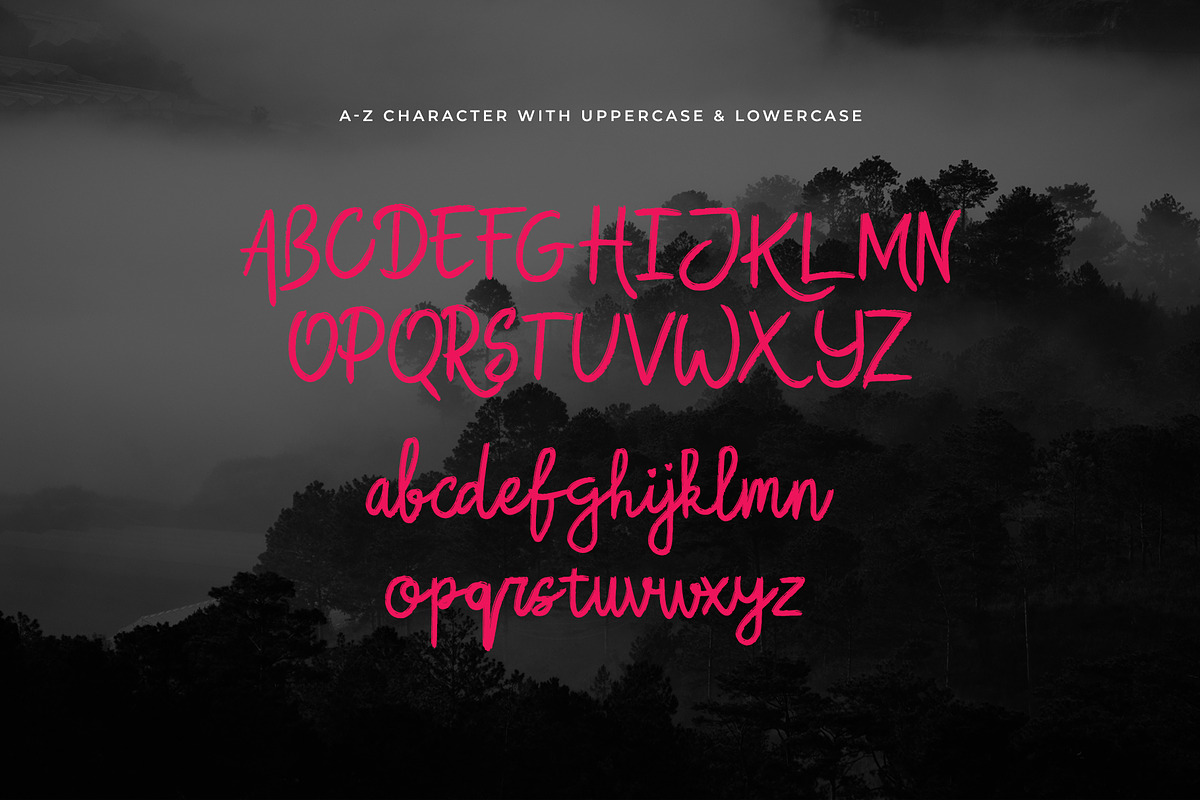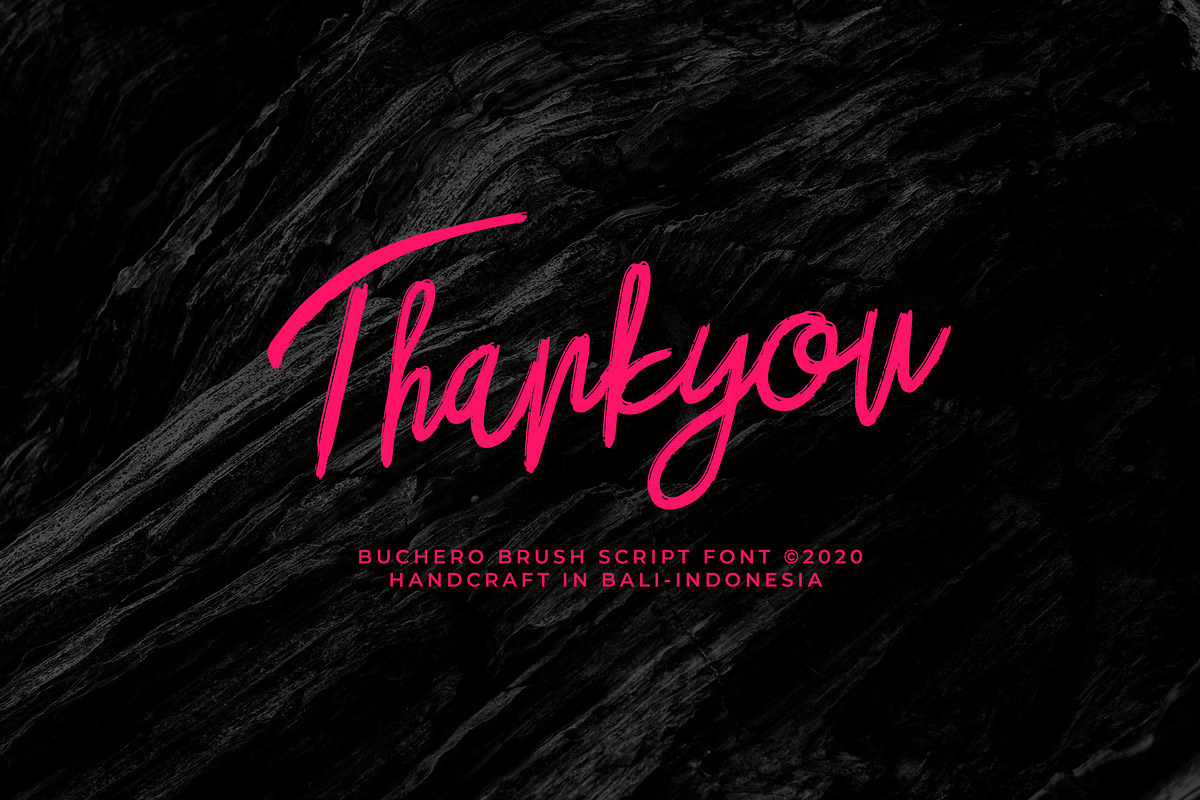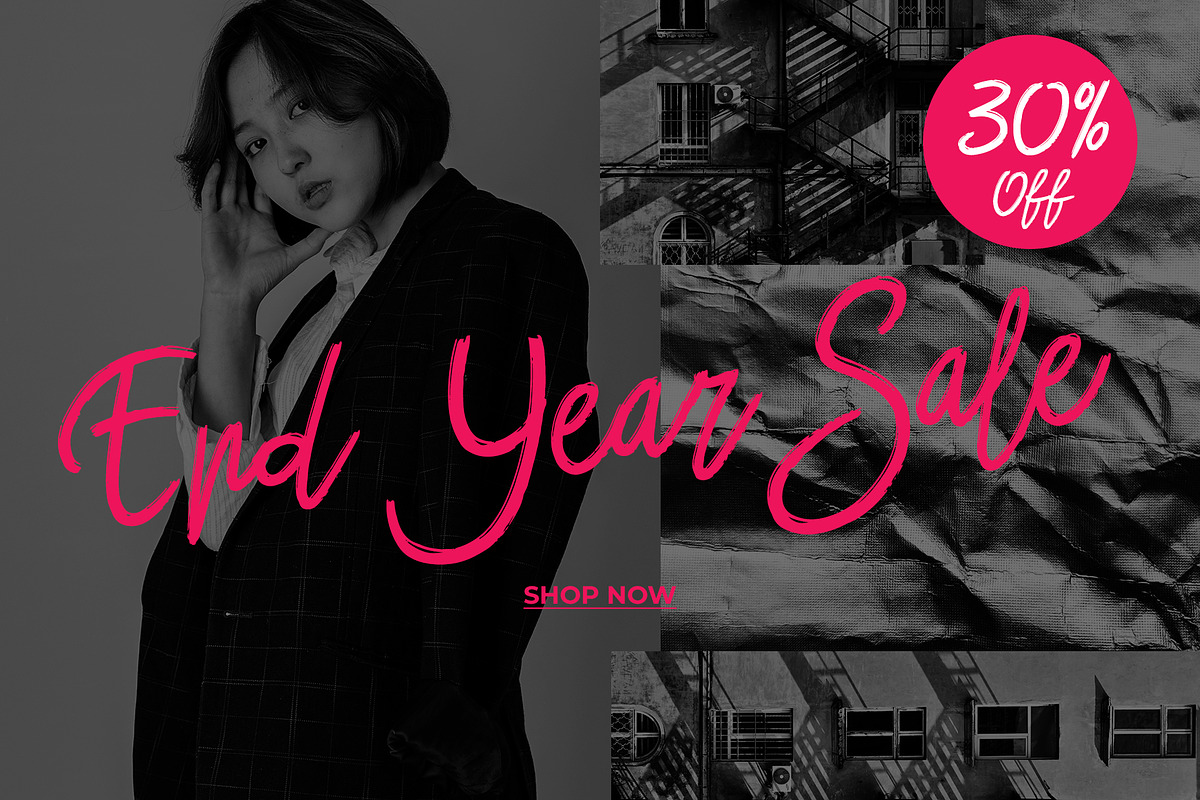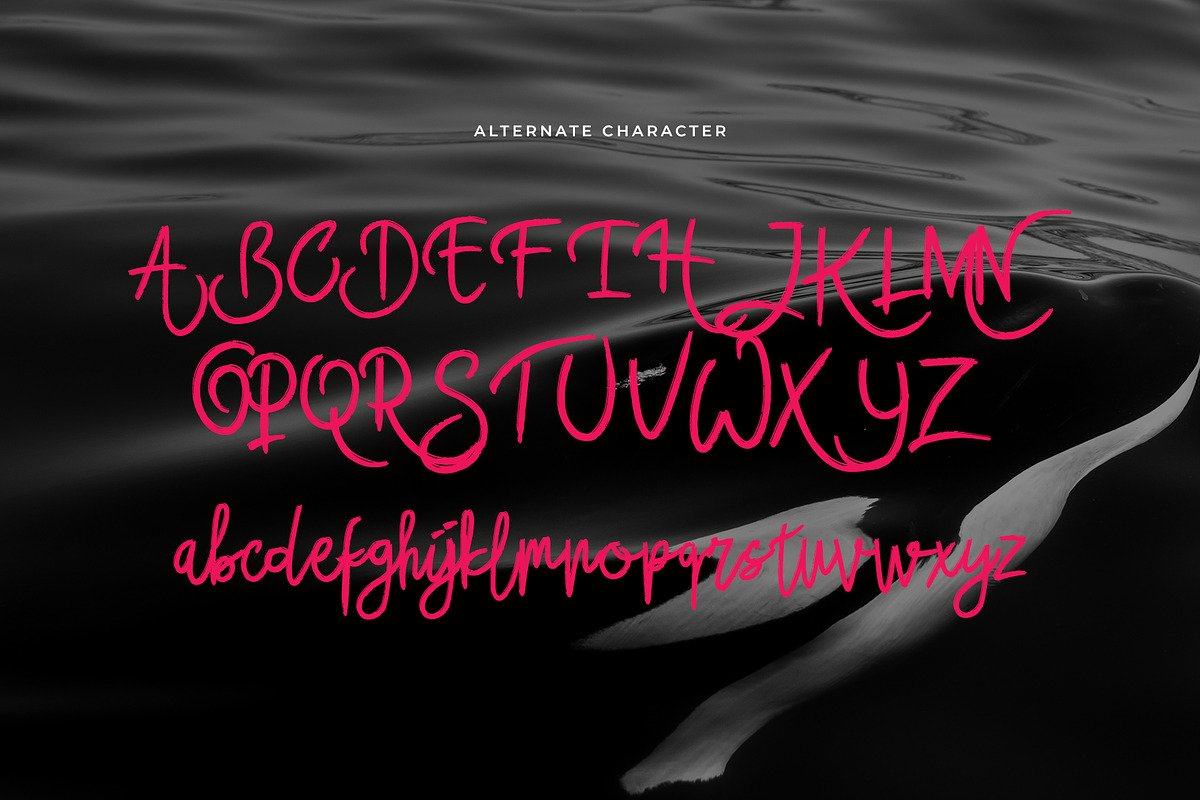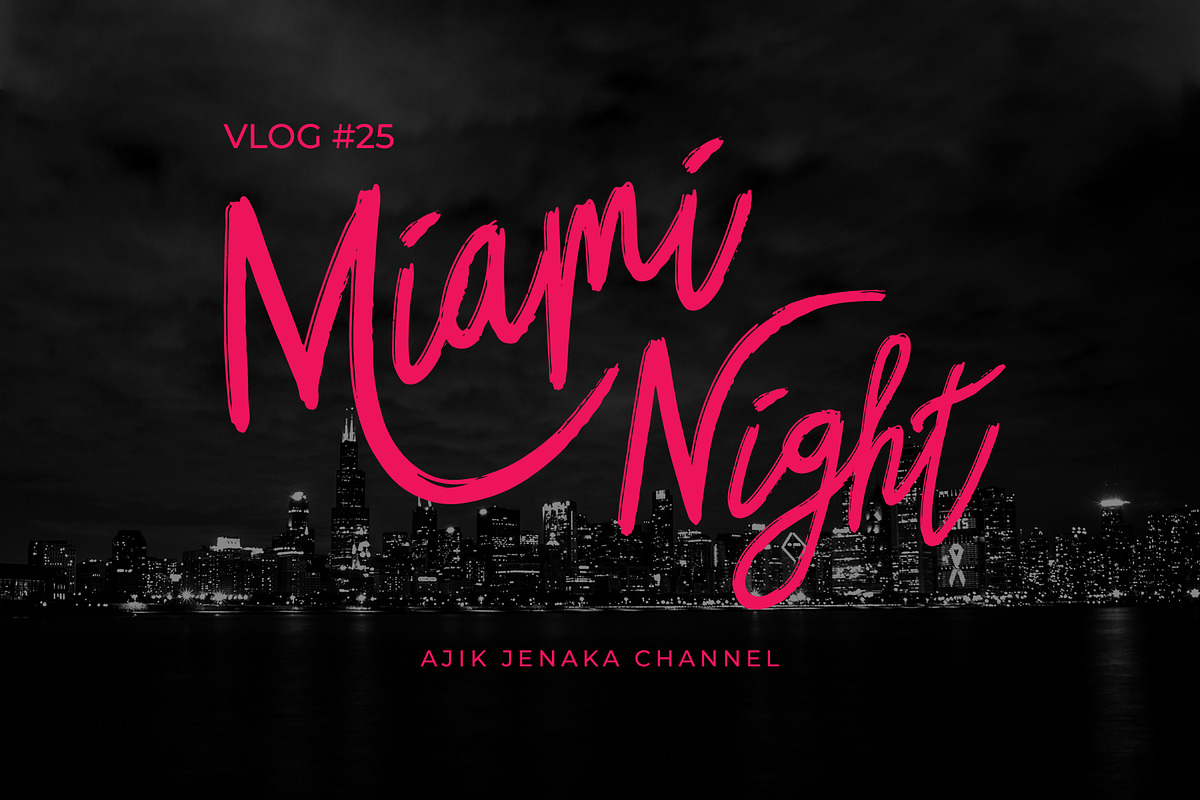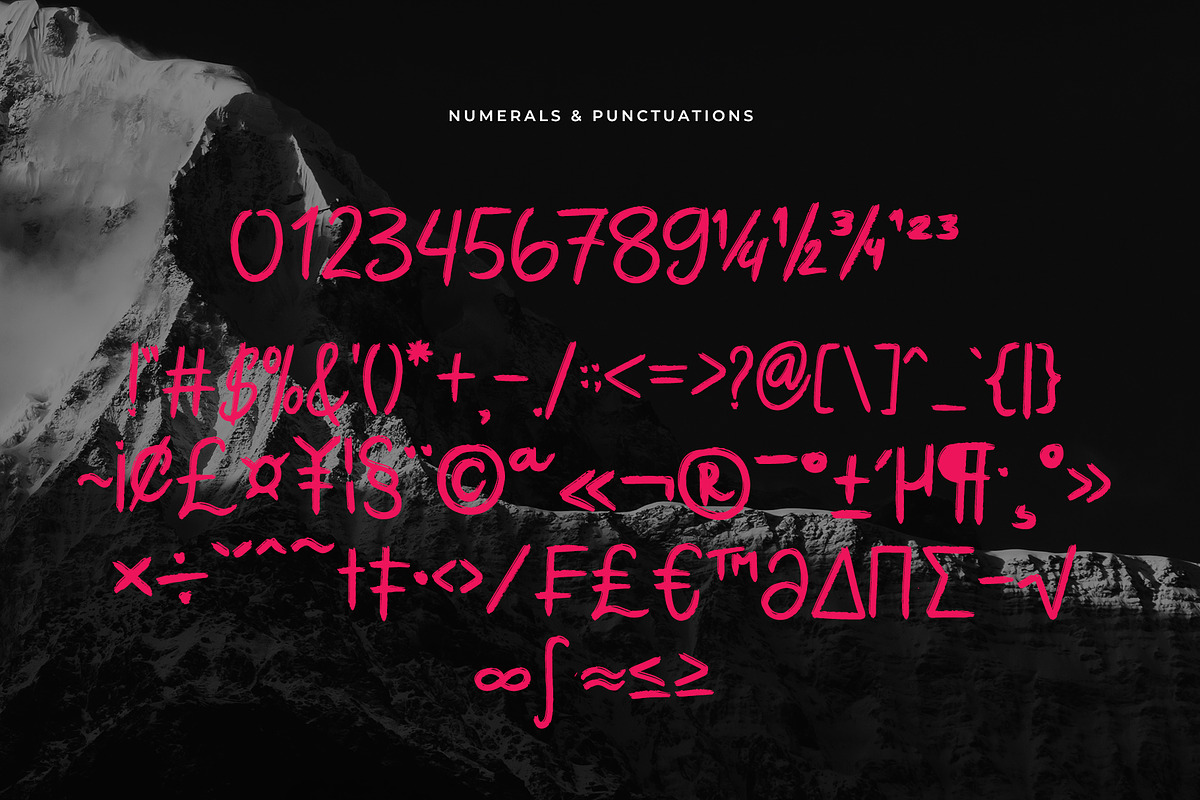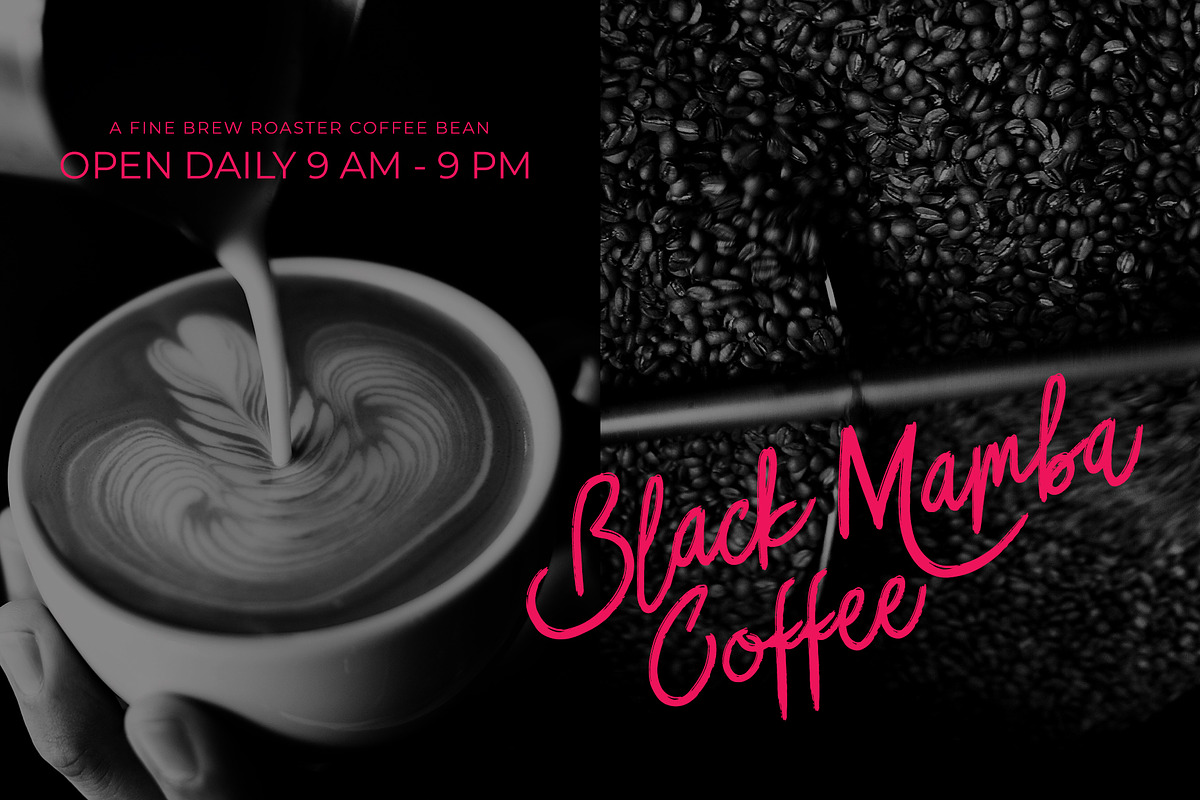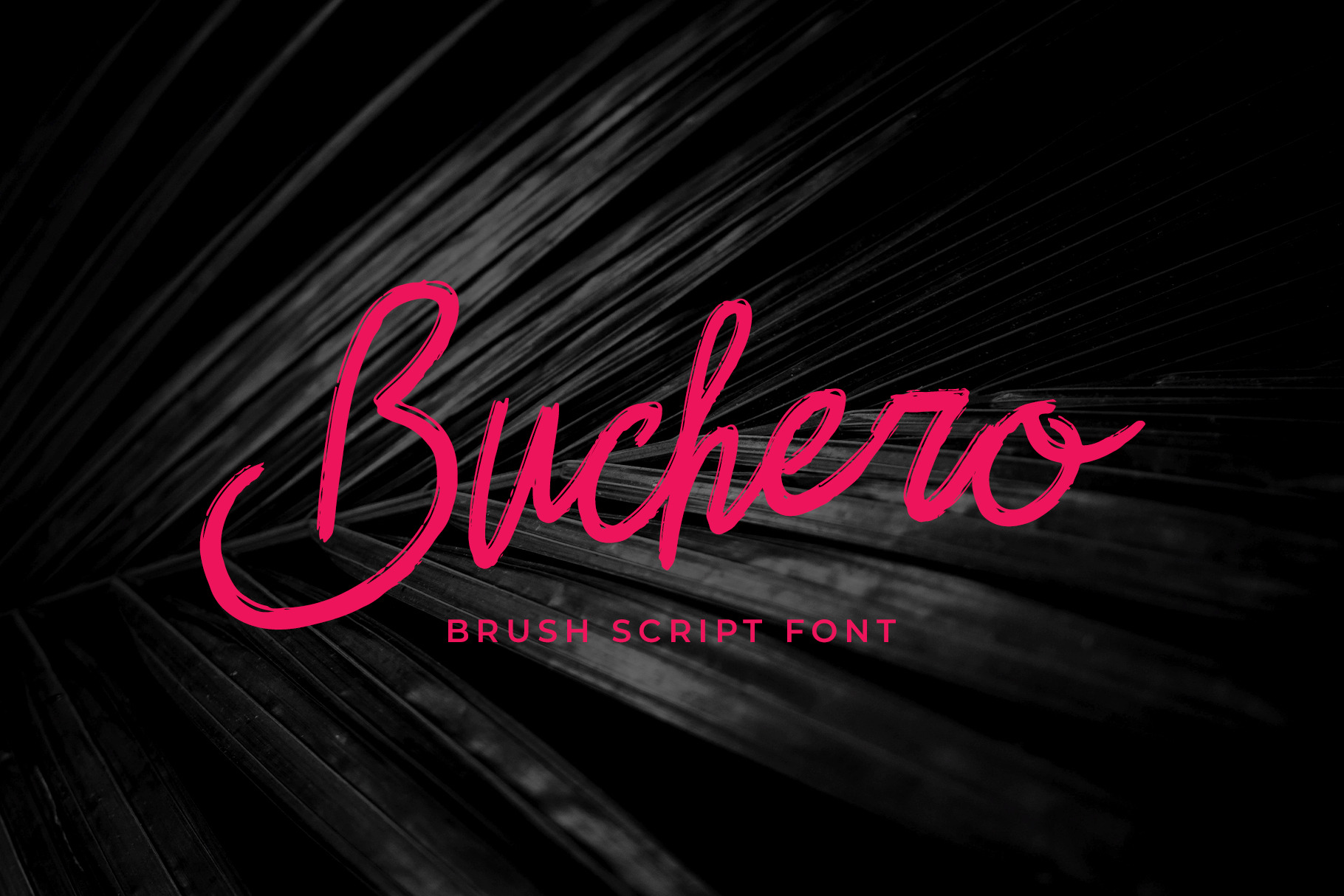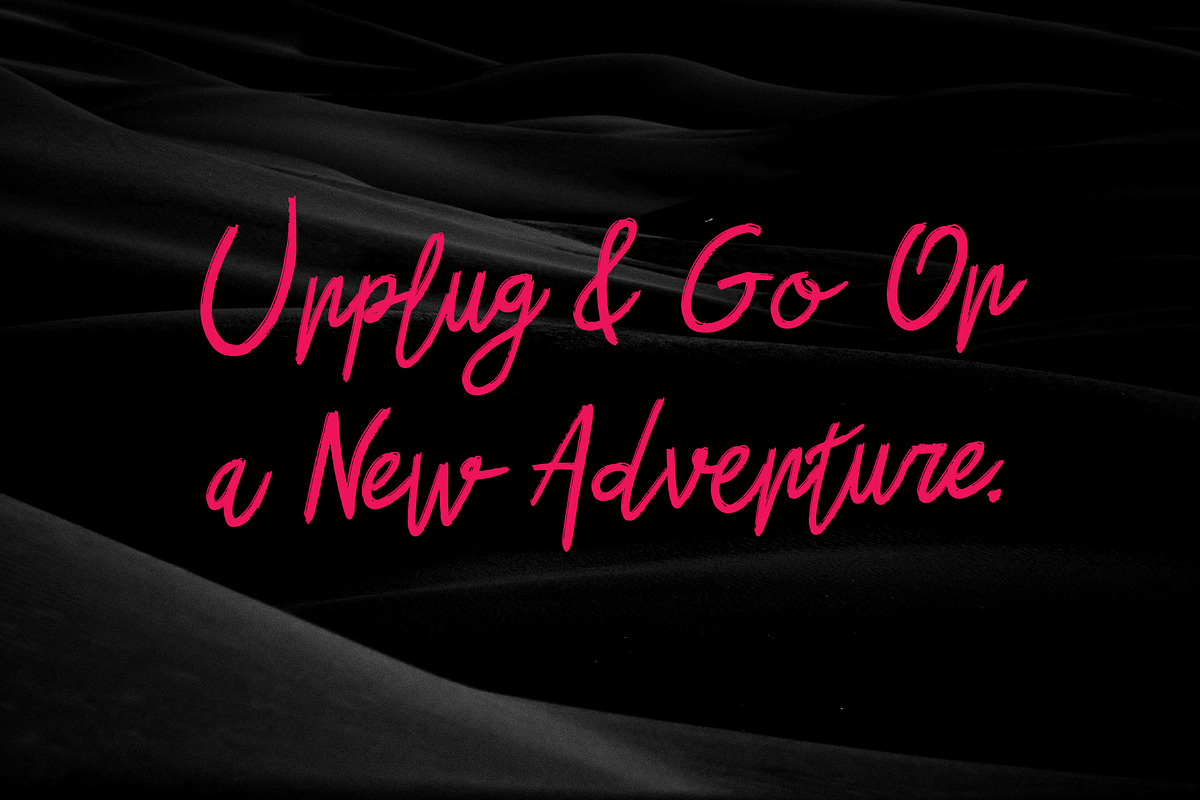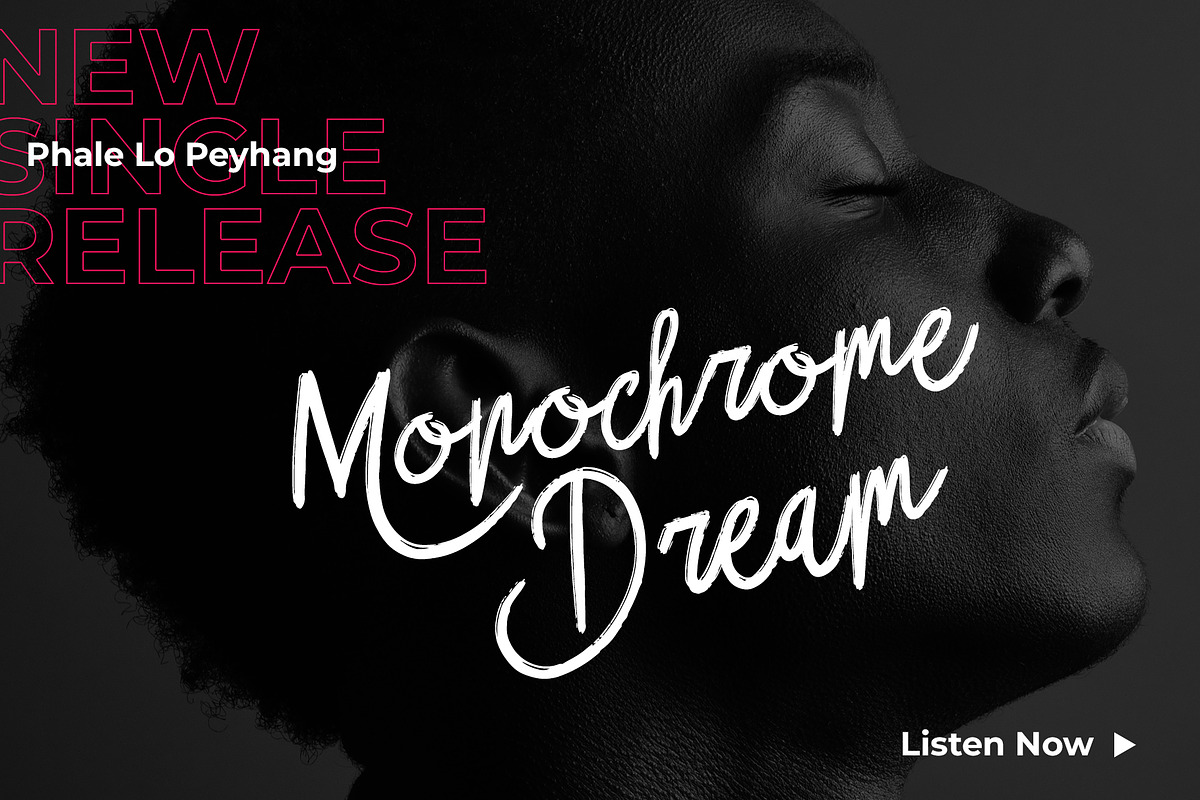
Buchero Brush Script Font
I proudly introduce to you Buchero Brush Script Font, created from rough brush strokes, made manually with hand. Can make it easier to convey the message in your design and create a unique impression of bold and adventurous. This script font is different from other script fonts. Buchero is perfect for all design concepts with casual or non-formal themes.
Very well used for Quotes , vlogger preview, logotype designs, fashion web banner, Musician song promotion, cafe or coffee shop promotion and much more.
- A-Z Character with Uppercase & Lowercase.
- Numerals & Punctuations.
- Multilingual.
- Alternate Character